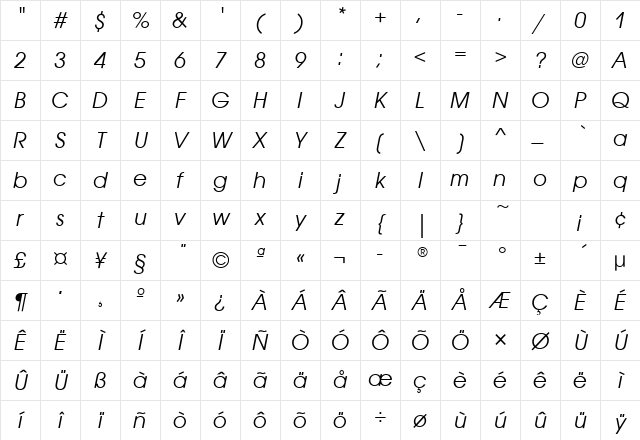
AvantGardeITC Italic
Foundry: E+F Designstudio. ITC Avant Garde is a registered trademark of International Typeface Corporation
Design Context for AvantGardeITC
AvantGardeITC is a composed and adaptable typeface that performs quietly and consistently across a wide range of design contexts. The slanted form adds forward momentum and visual energy.
Pro Tip: Use AvantGardeITC for emphasis, pull quotes, and subheadings where its slanted energy can add rhythm to the layout.
Who designed the AvantGardeITC Italic font?